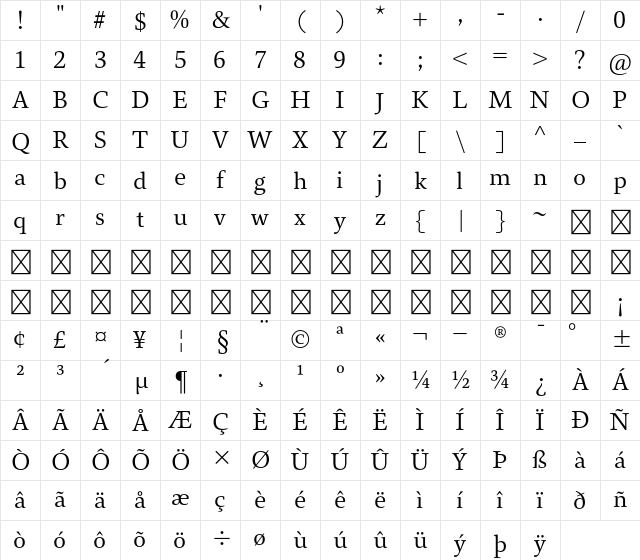
A P-OTF Bunkyu Mincho Pr6N R
Style: R
Designer: JIYUKONO Ltd.
Design Context for A P-OTF Bunkyu Mincho Pr6N
A P-OTF Bunkyu Mincho Pr6N is a composed and adaptable typeface that performs quietly and consistently across a wide range of design contexts.
Pro Tip: Use A P-OTF Bunkyu Mincho Pr6N in both headline and body roles to test its range before committing to a single application.